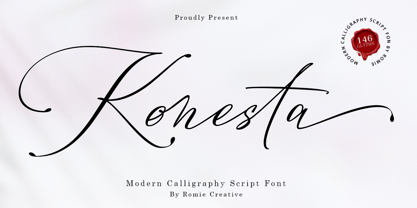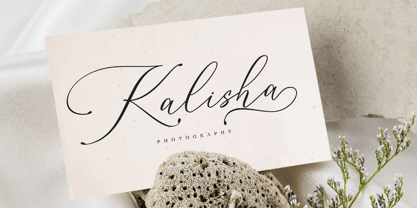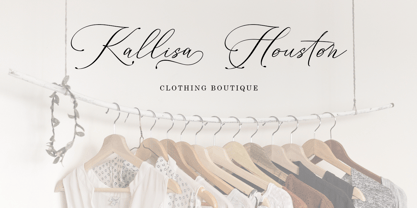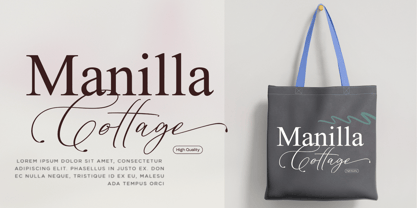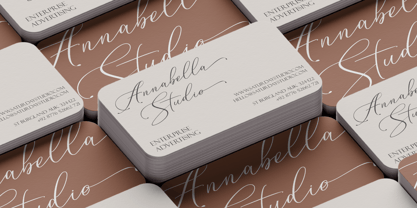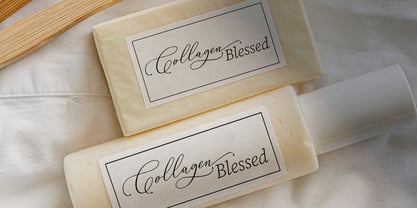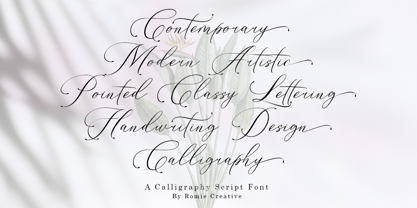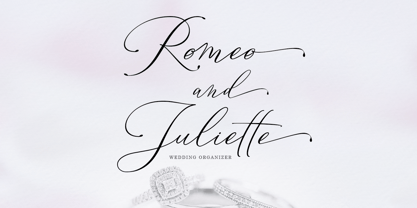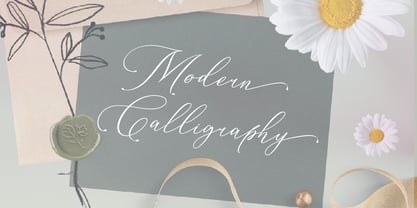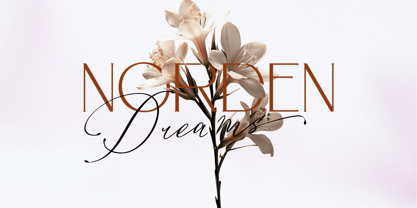
Konesta Calligraphy Script
by Romie Creative
The Konesta Calligraphy Script Font Family was designed by Romi Rahmadi and published by Romie Creative. Konesta Calligraphy Script contains 2 styles and family package options.
Konesta - Modern Calligraphy Script inspired by clean and tidy handwriting. Featuring fabulous beginning and ending lowercase swashes, this is perfect for branding, logos, invitation, greeting cards, headlines and more.
Konesta - Modern Calligraphy Script is PUA encoded which means you can access all of the glyphs and swashes with ease.